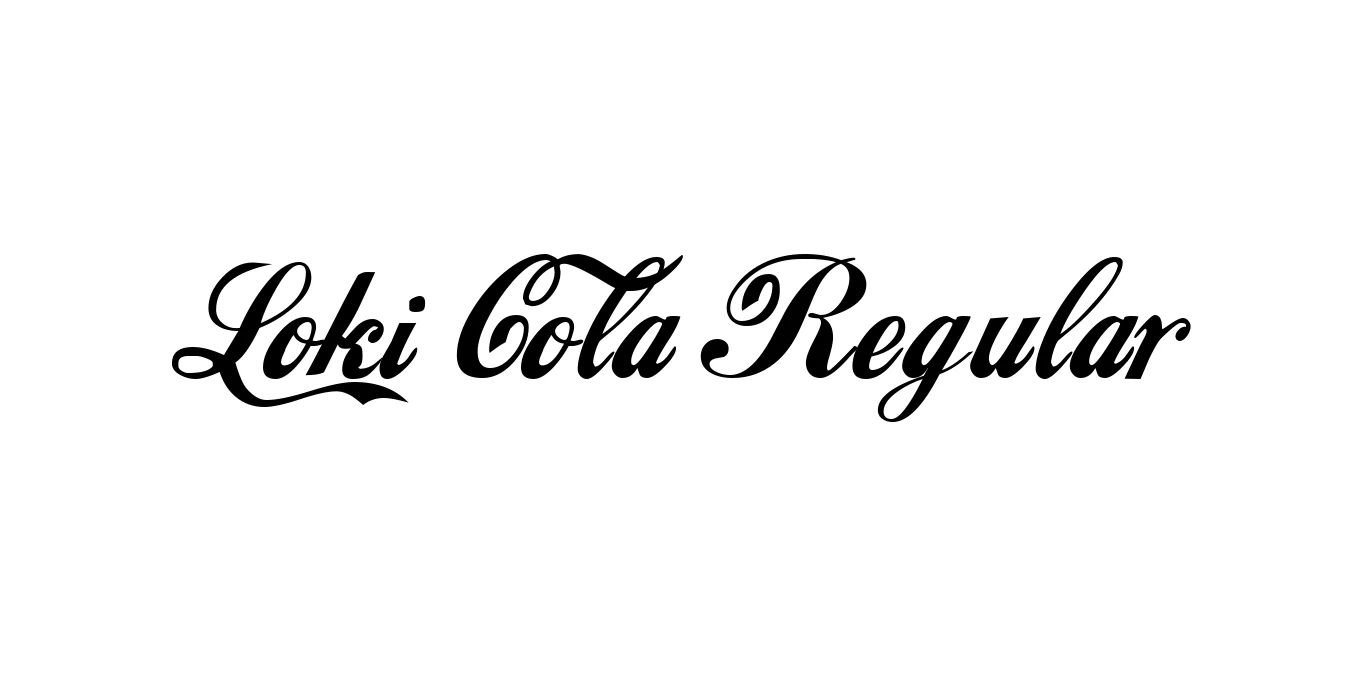
Loki Cola Regular
Loki Cola Regular is a classic decorative script font that pays homage to the world-renowned Spencerian script used in the Coca-Cola brand logo. This typeface captures the fluid, sweeping curves and thick-to-thin stroke transitions that define the nostalgic American aesthetic of the early 20th century. It is widely recognized for its rhythmic flow and the iconic swashes that extend from the capital letters, making it a staple for anyone looking to replicate a vintage beverage-style identity.
Since its release as a tribute font, it has become a favorite in the graphic design community for parody logos, retro-themed advertisements, and custom apparel. While it lacks the refinement of professional corporate fonts, its charm lies in its immediate brand recognition and bold, expressive personality. It is primarily used for display purposes where high impact and a sense of familiarity are required.
Loki Cola Regular Best Uses
Perfect for creating parody logos or brand identities that require a classic soda-shop feel.
Excellent for t-shirts, stickers, and posters that lean into retro Americana pop culture.
Ideal for bold, large-scale headings in themed environments like diners or vintage markets.